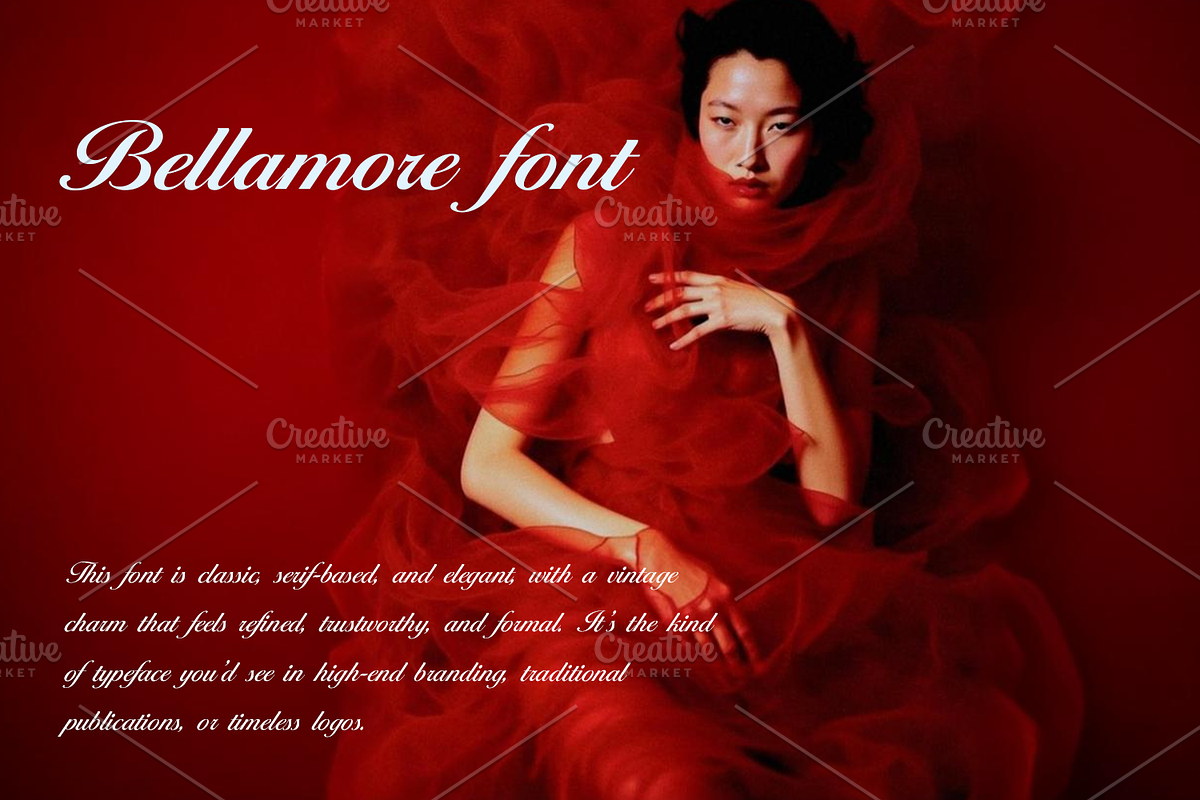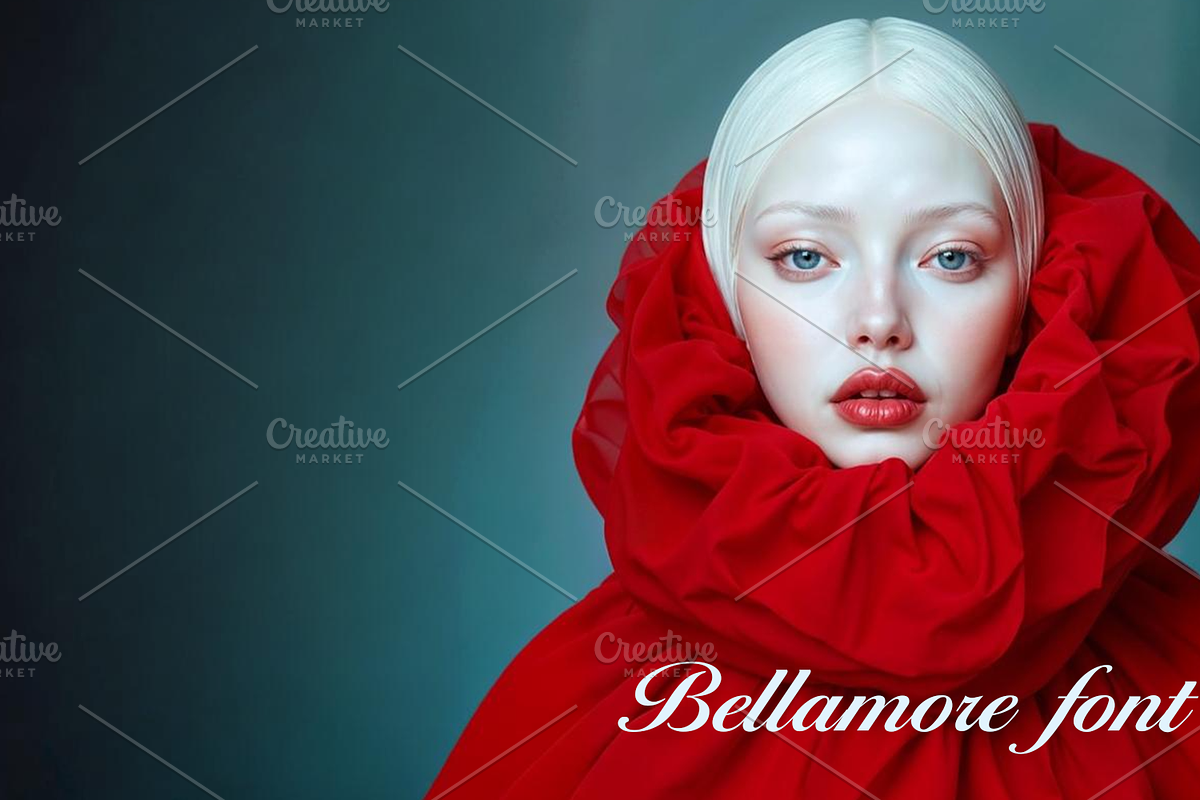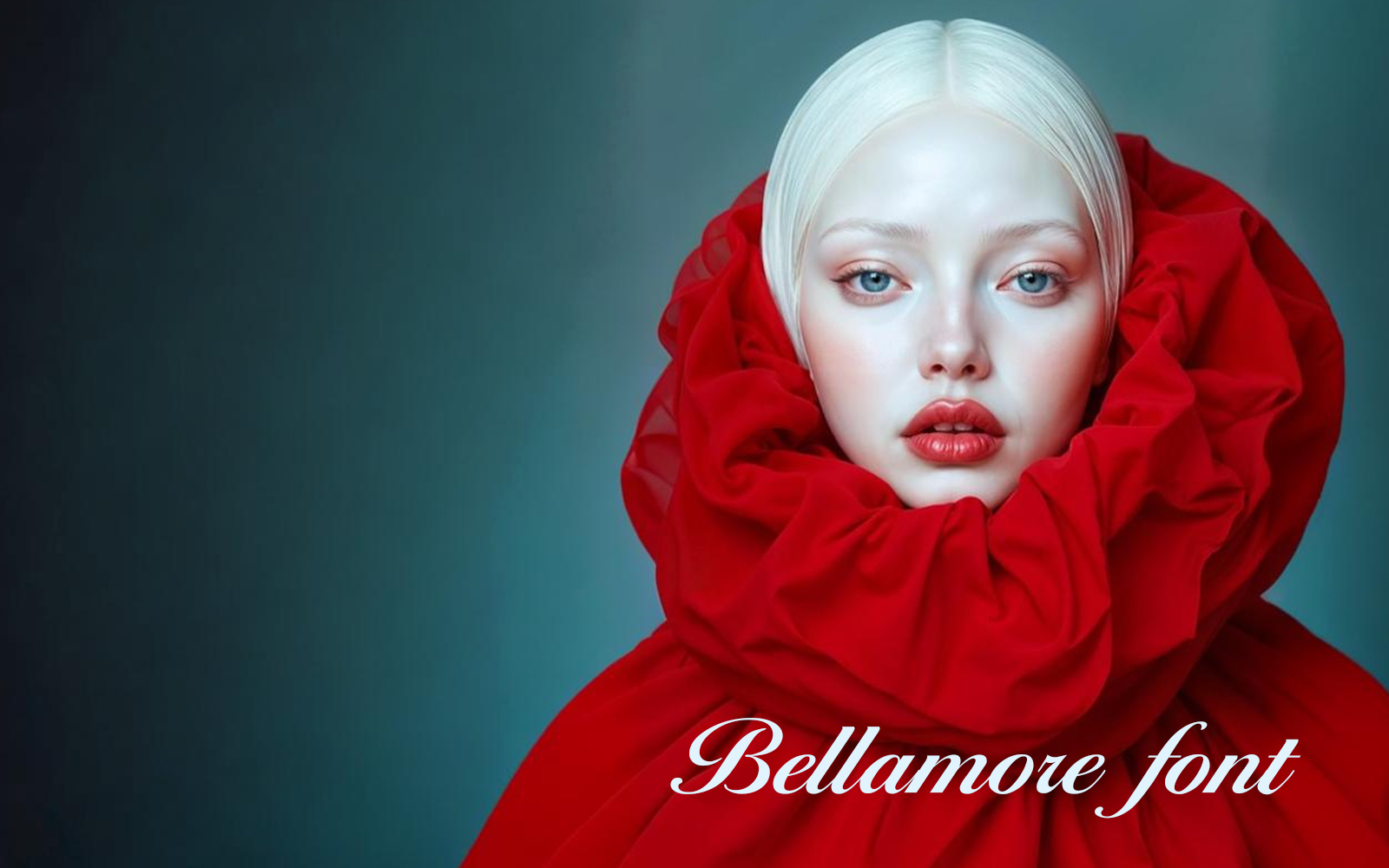
Introducing Bellamore where timeless elegance meets modern refinement.
This distinguished serif font adds sophistication and character to every project.
Perfect for luxury labels, classic editorials, and brand identities that demand respect.
With Bellamore, tradition speaks in style.